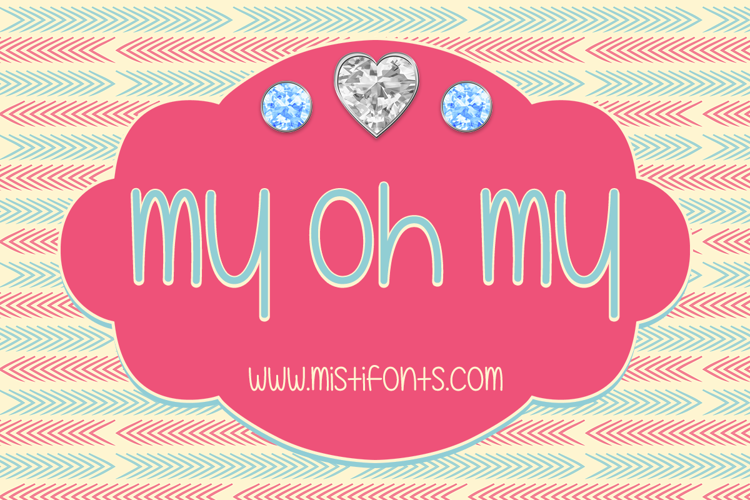
My Oh My Font
12 years agocute! i love how you did the "g" very original!
9 years agoMy oh my, your "g," "p," and "q" are totally cool. Thumbs up 😄
9 years ago@CharliCharliCharliFontForever I'm glad you like them 😃 Yes that g is probably the most distinctive character 😃